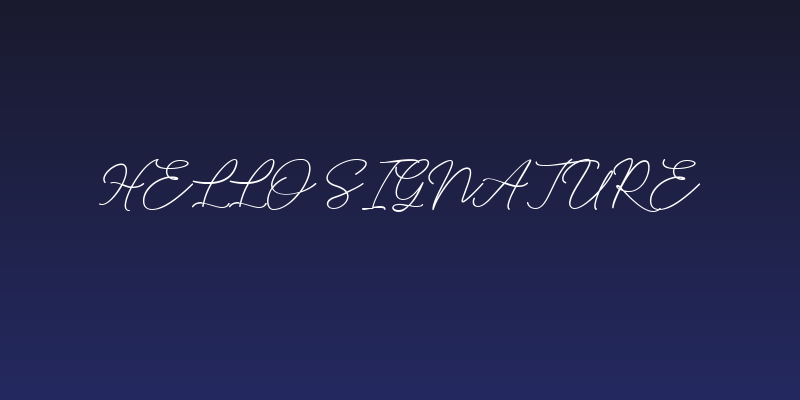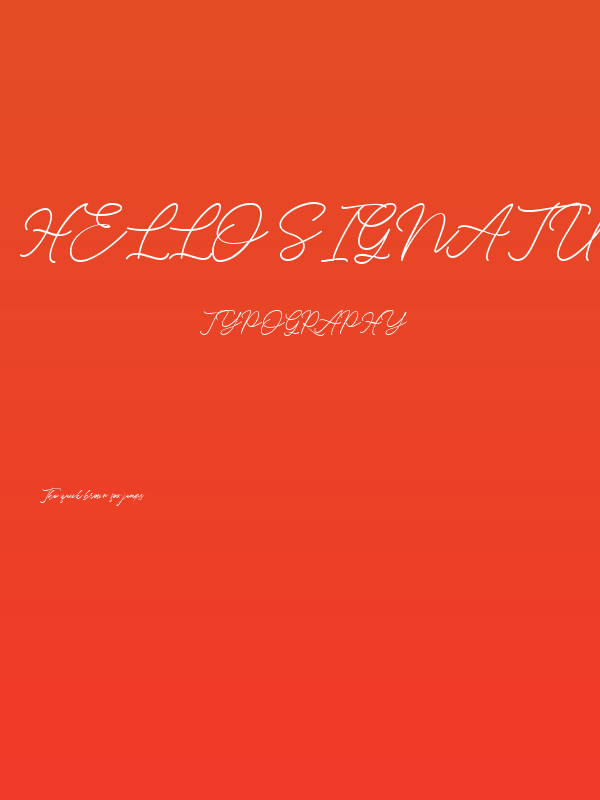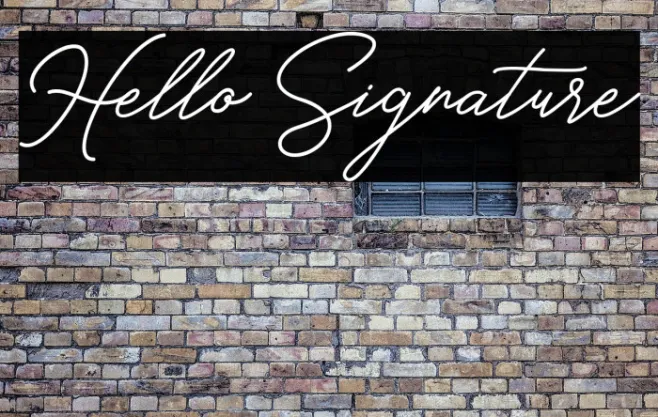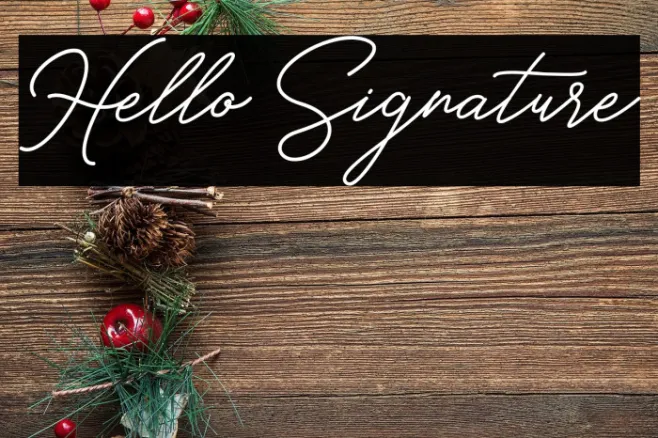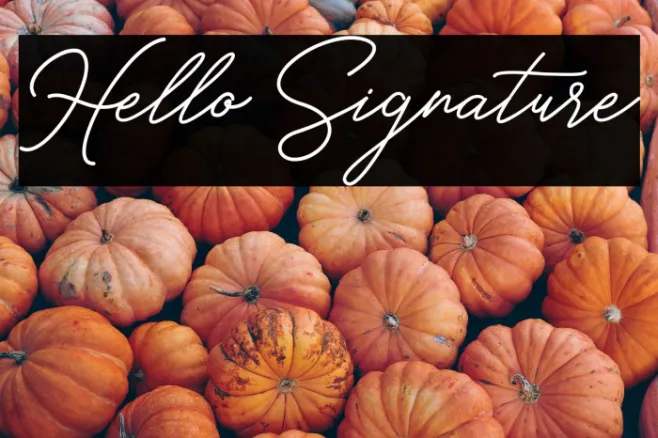
Hello Signature Font
Hello Signature Description
This elegant script font exudes a sense of sophistication and fluidity, characterized by its smooth, flowing strokes that mimic the natural motion of handwriting. The uppercase letters are slightly more elaborate, with graceful loops and curves, while the lowercase letters maintain a consistent, connected style that enhances readability. The numerals and special characters are designed to complement the alphabet, maintaining the same fluid and cursive aesthetic. This font is perfect for projects that require a personal touch, such as invitations, greeting cards, or branding materials that aim to convey elegance and warmth.
| Overall Style | Elegant, Handwritten |
| Proposed Projects | Ideal for wedding invitations, personal branding, greeting cards, and elegant stationery. |